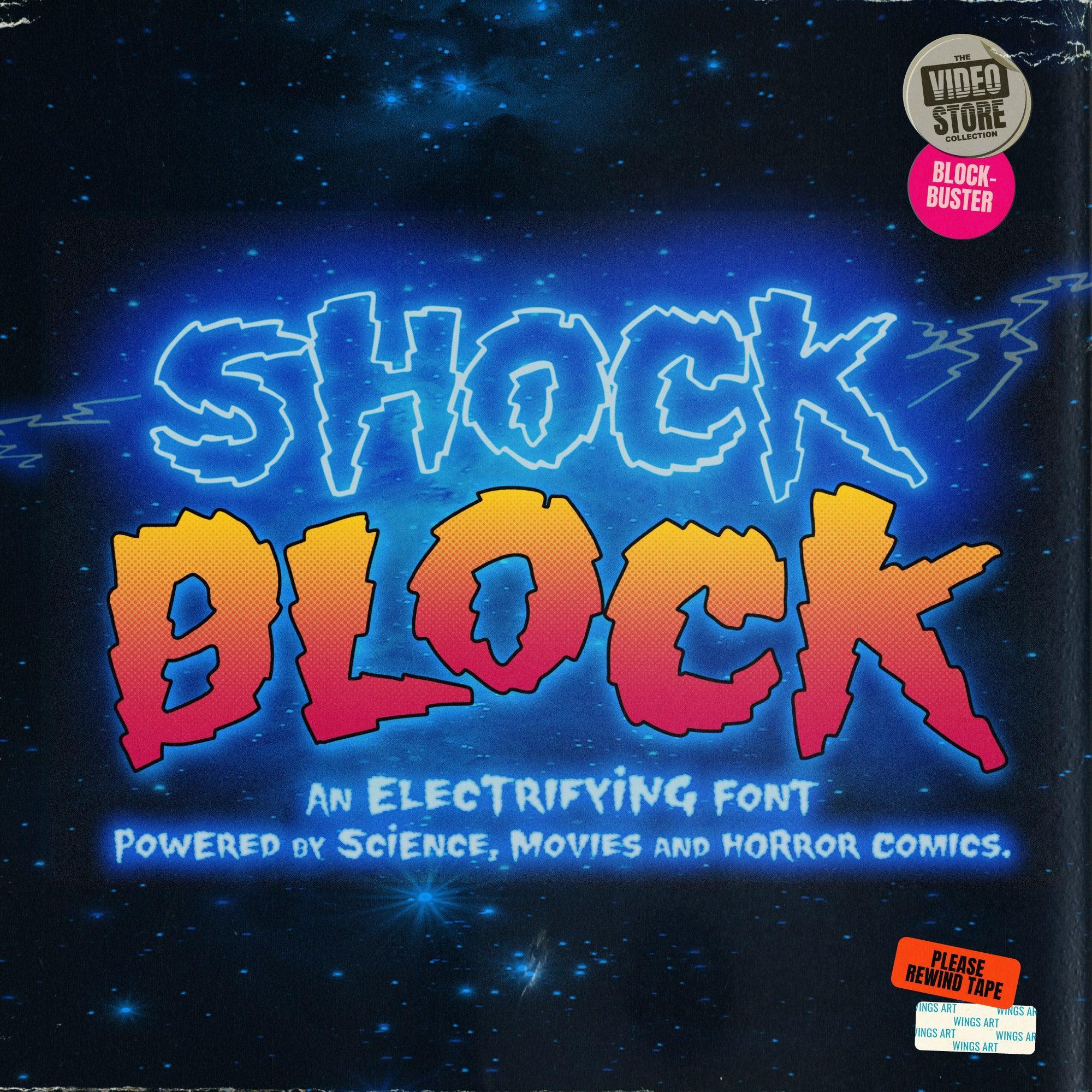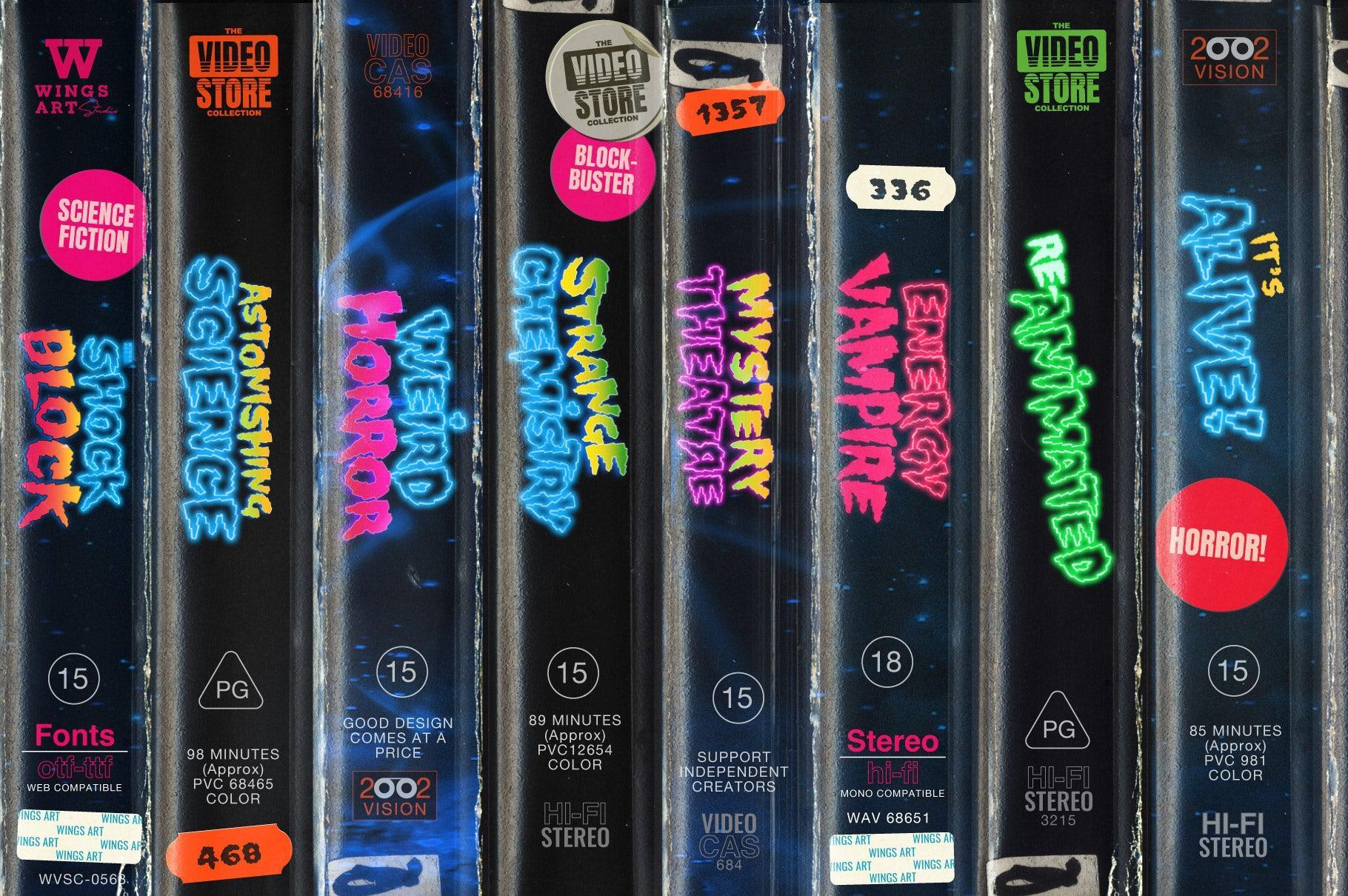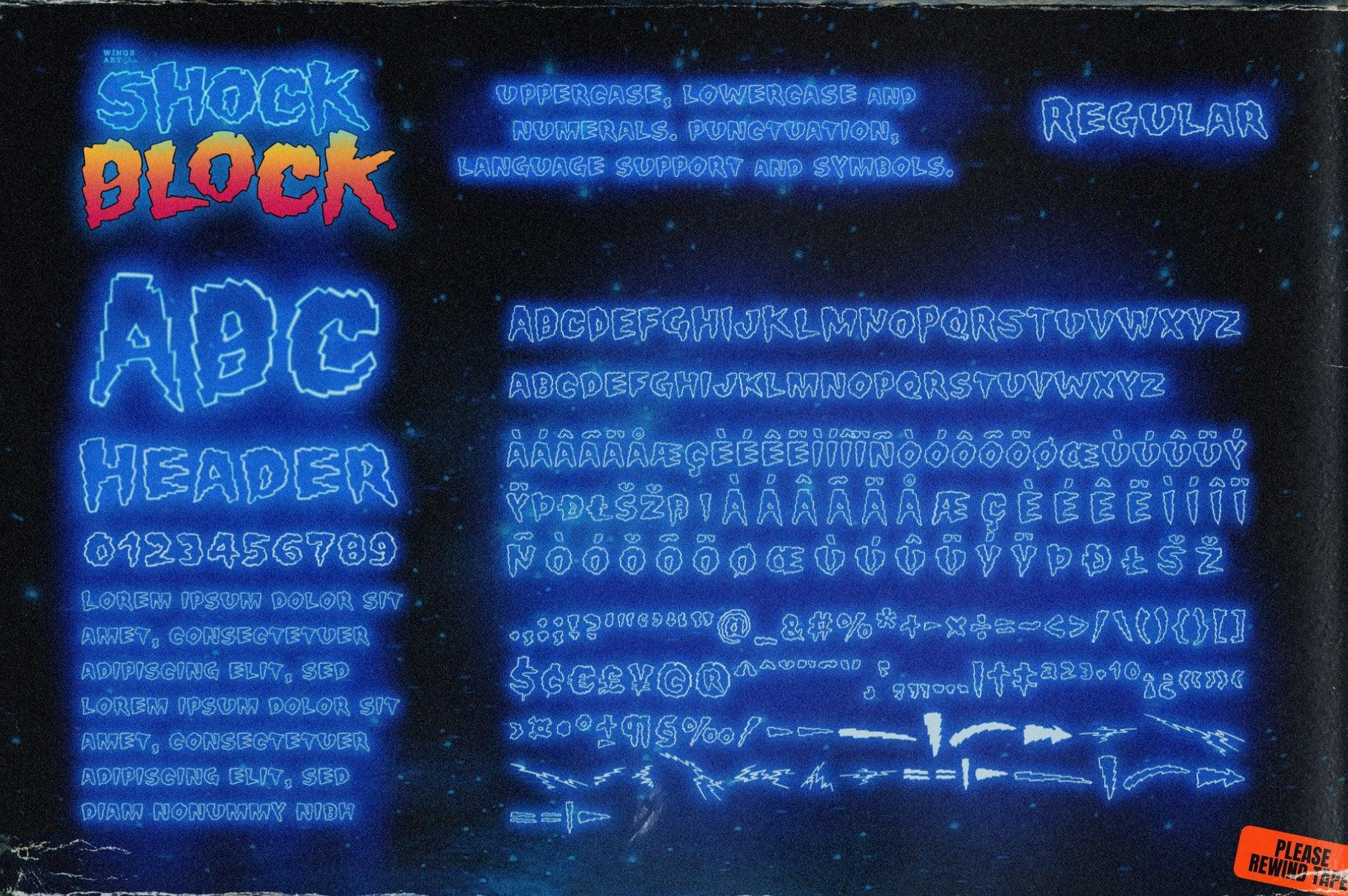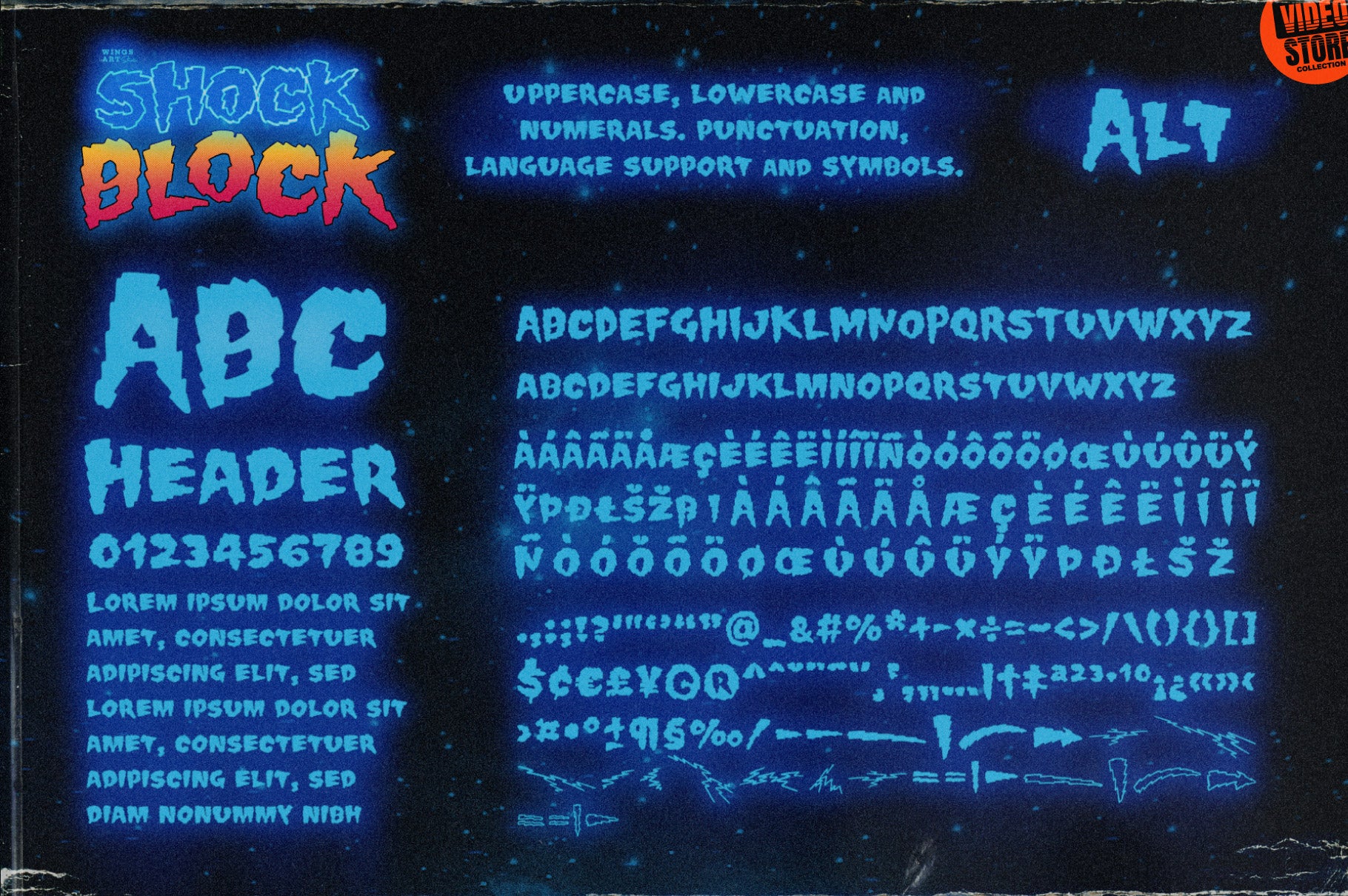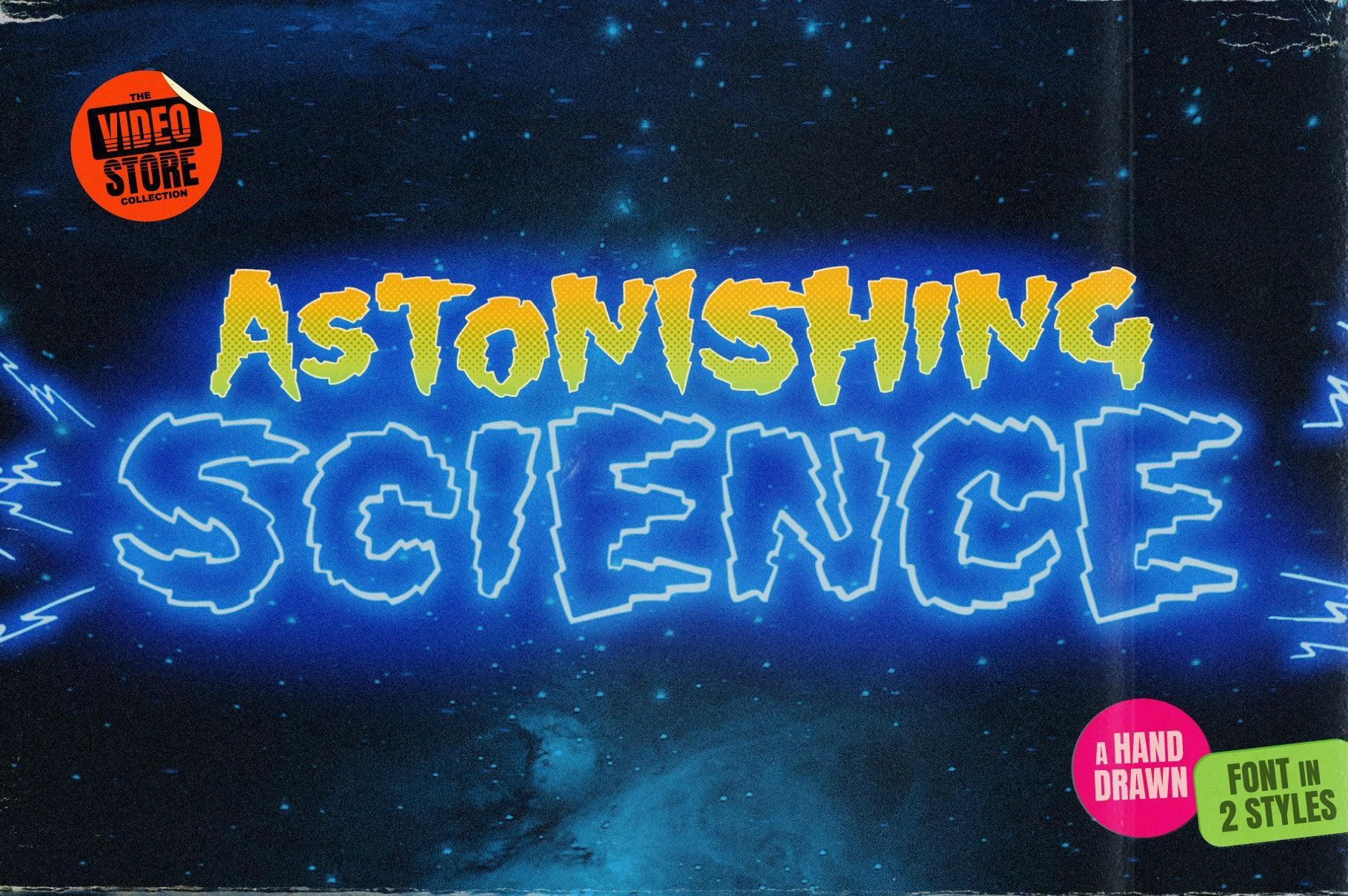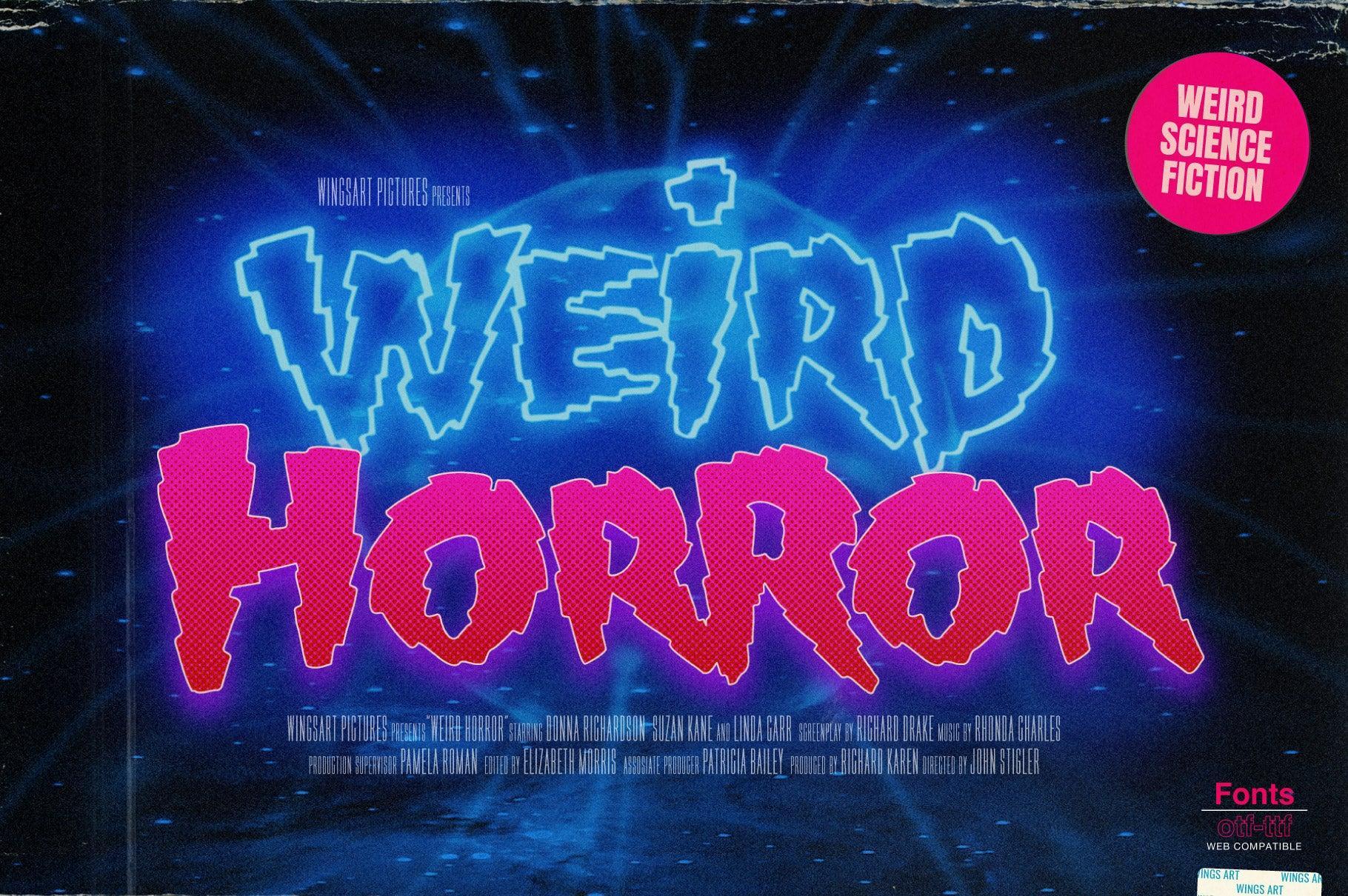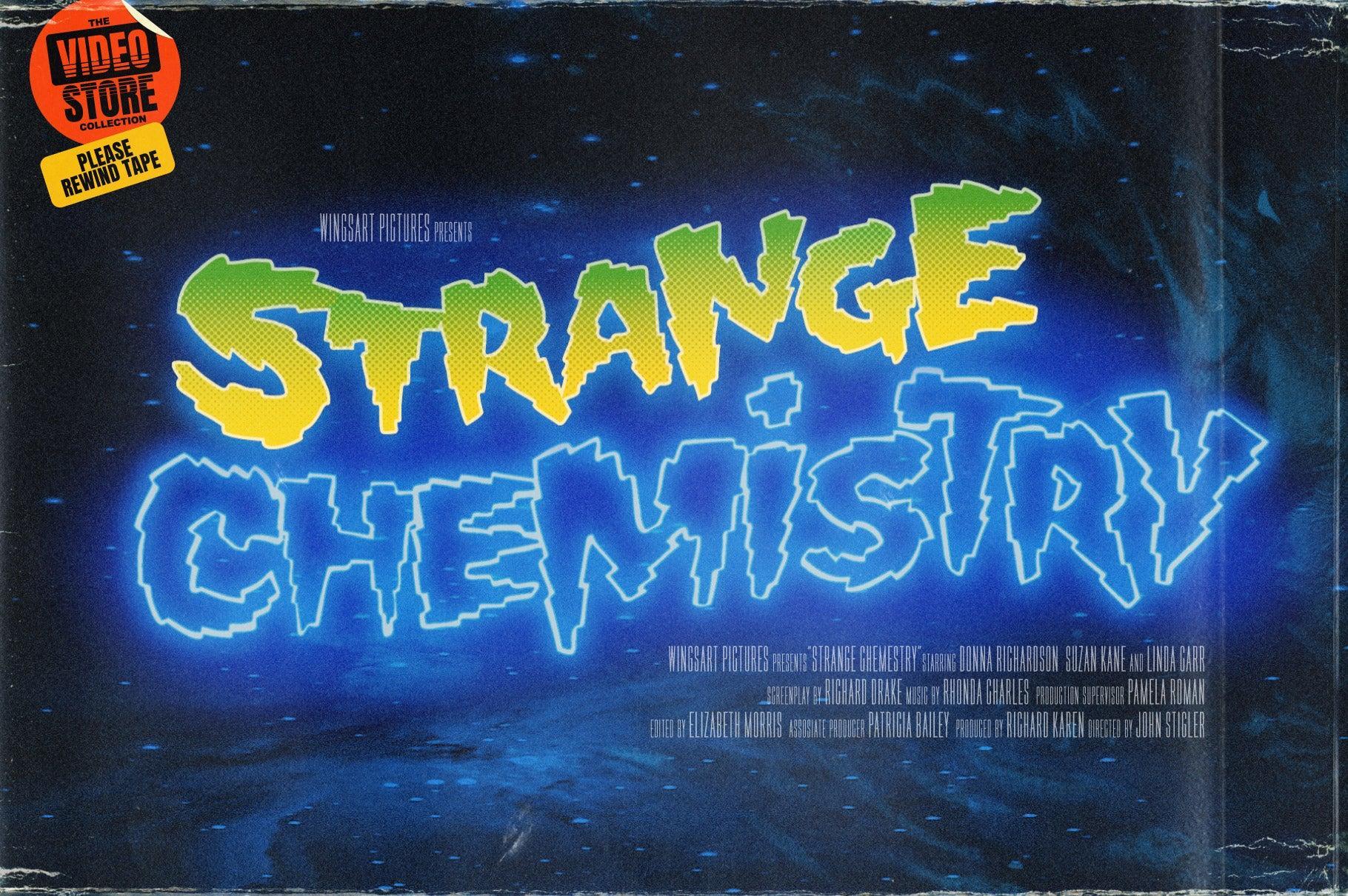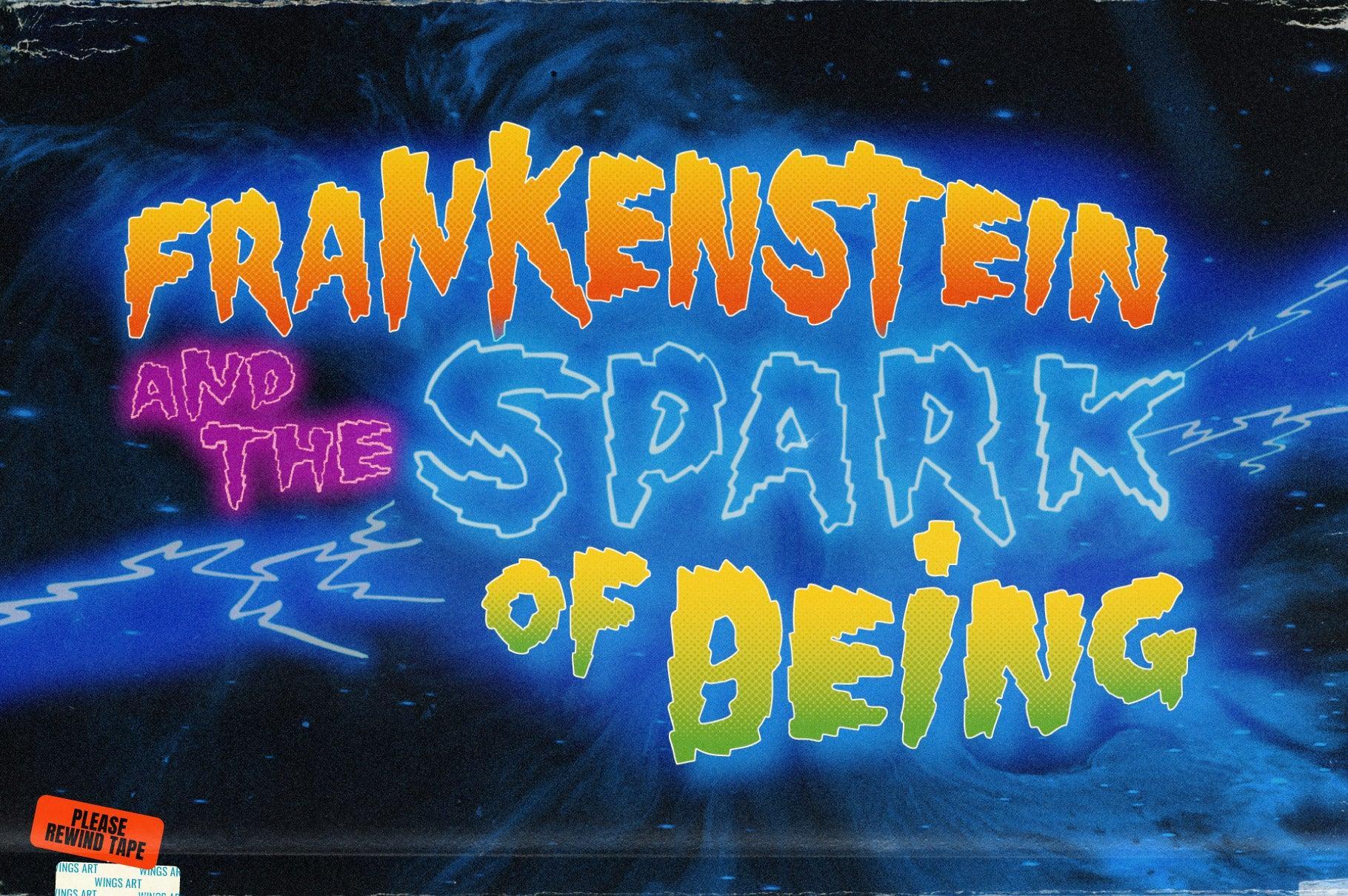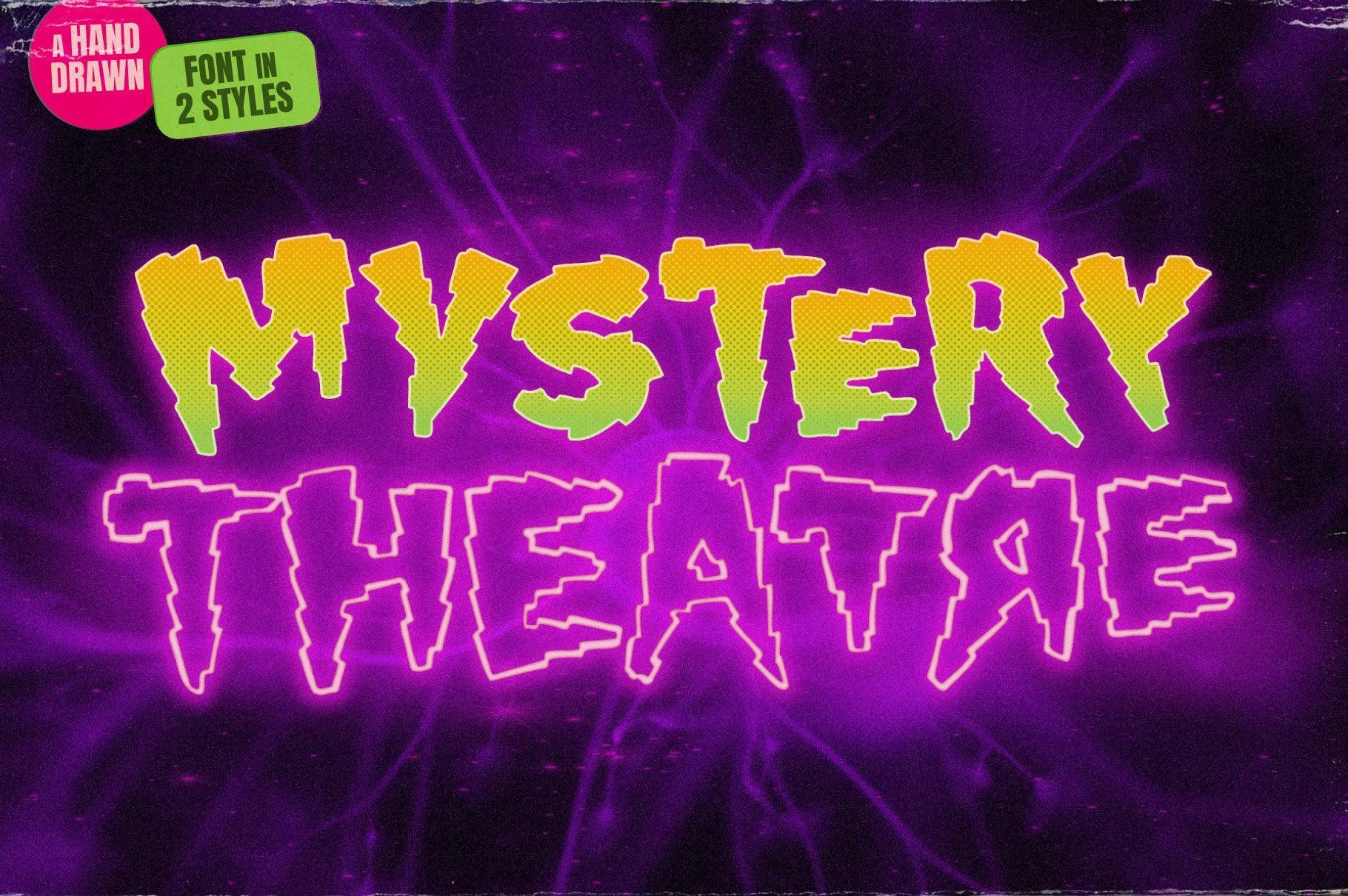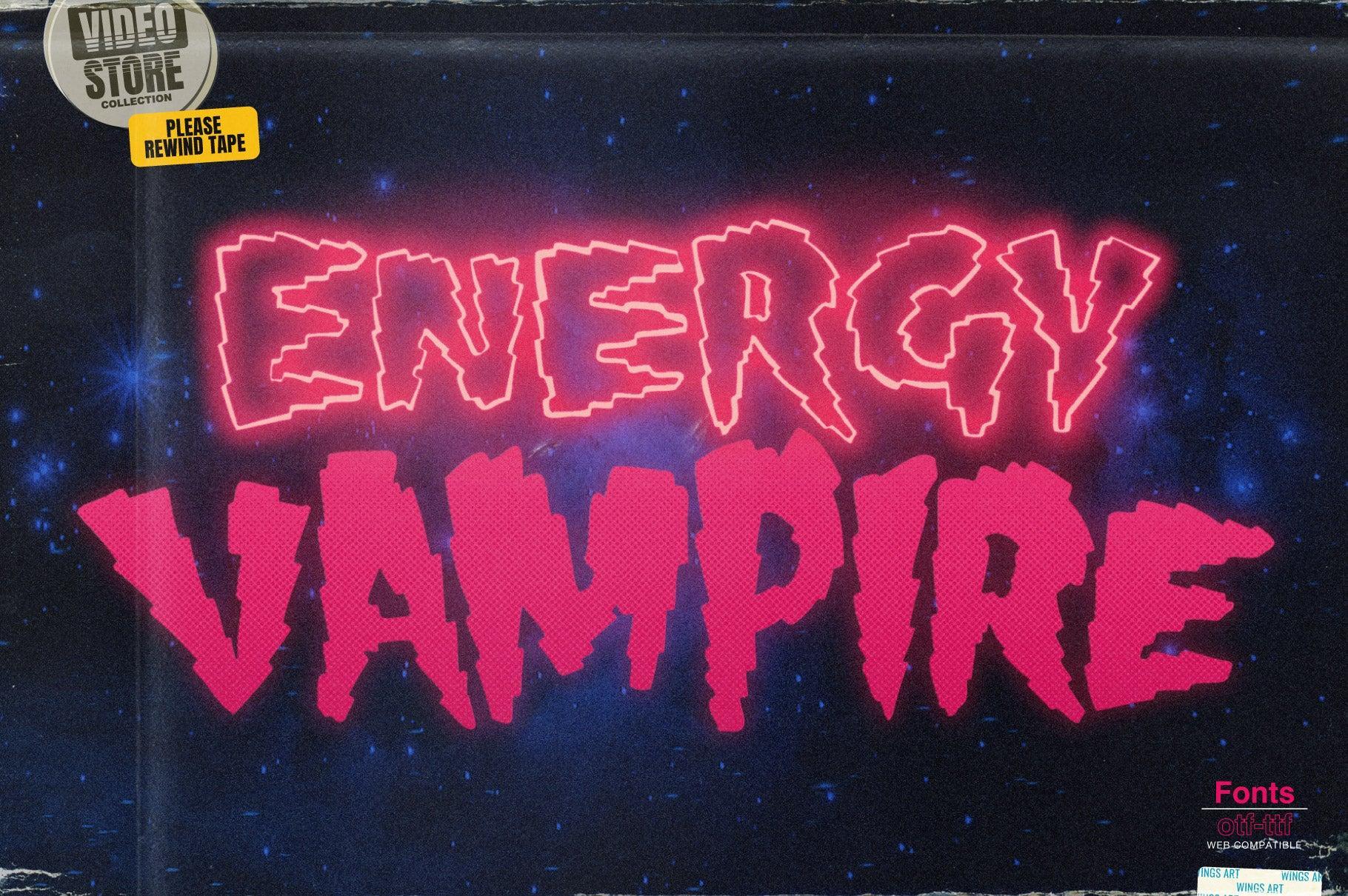
Shock Block: An Electrifying Font
Shock Block is an electrifying all-caps font designed with a hand-drawn style that emulates classic horror comics and 80s movies. It features unique upper and lowercase characters, numerals, punctuation, and includes a contrasting 'Block' style along with lightning bolt symbols and underlines, with additional graphic presets available for a neon look.
Ideal for retro-inspired graphic design and bold display typography. Perfect for movie titles, comic books, and school projects, ensuring an electrifying visual impact that captures the essence of 80s nostalgia and horror aesthetics.